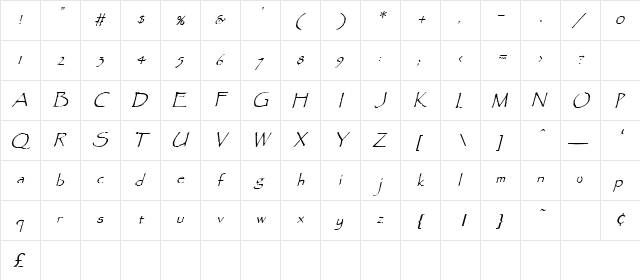
Kermis Oblique
Design Context for Kermis Typeface
Kermis takes a measured approach to typography — its balanced proportions and neutral character make it a reliable workhorse for both digital and print work. The slanted form adds forward momentum and visual energy.
Pro Tip: Try Kermis for annotation and caption copy alongside an upright companion — the contrast in angle creates a dynamic but ordered typographic system.